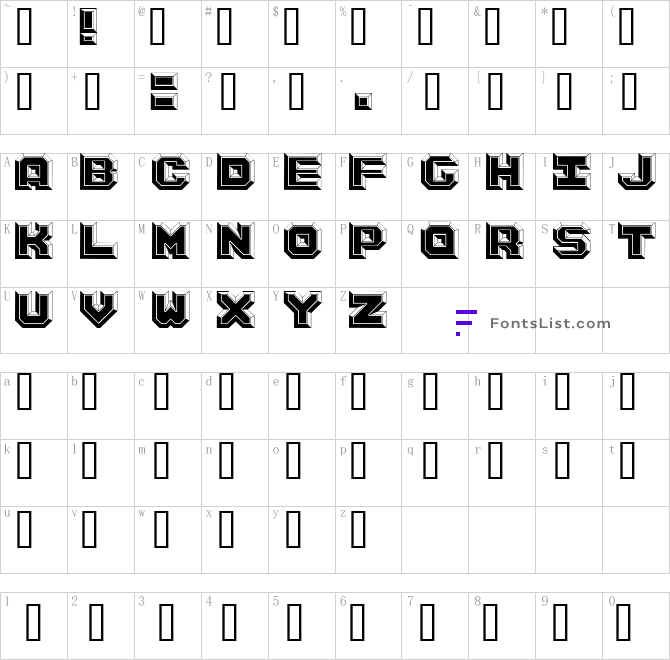
- Font Name:Argentum
Argentum-Black-copy-1-.ttf is a very beautiful artistic font, Argentum-Black-copy-1-.ttf is widely used in the design and printing of various books and pictures,Argentum-Black-copy-1-.ttf has a strong visual impact,Argentum-Black-copy-1-.ttf is a commonly used font in newspapers, magazines and books, and is used in posters, e-commerce Poster design, store design, logo design, font design and other fields.Argentum-Black-copy-1-.